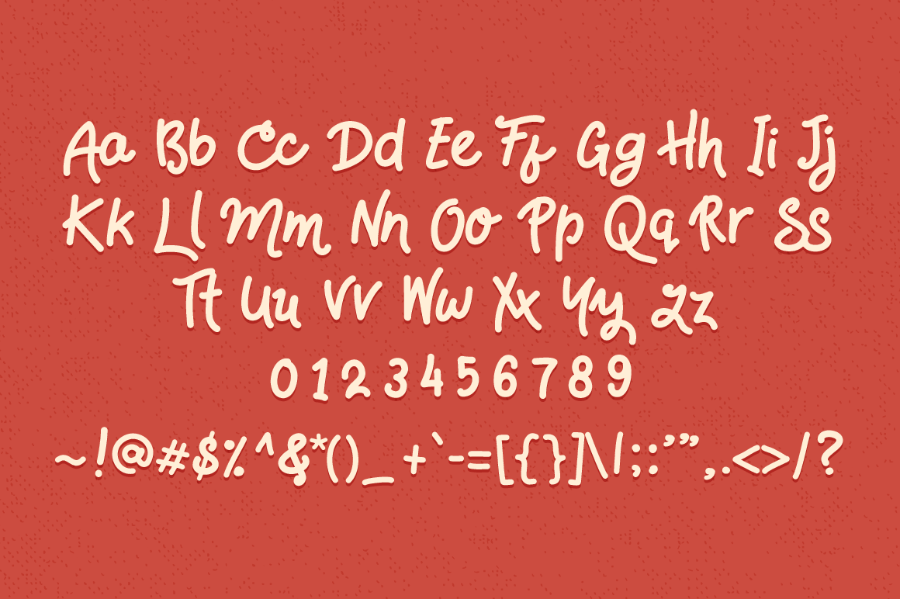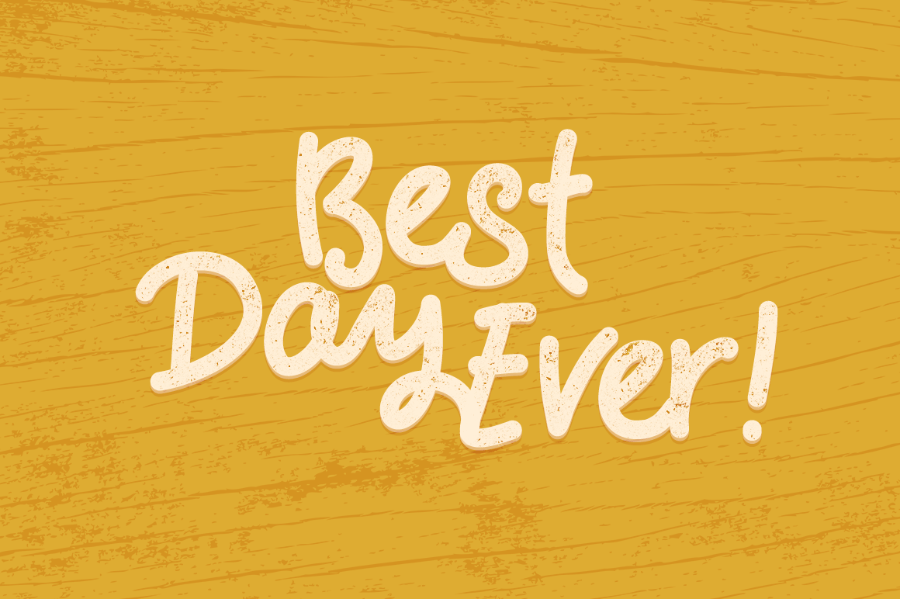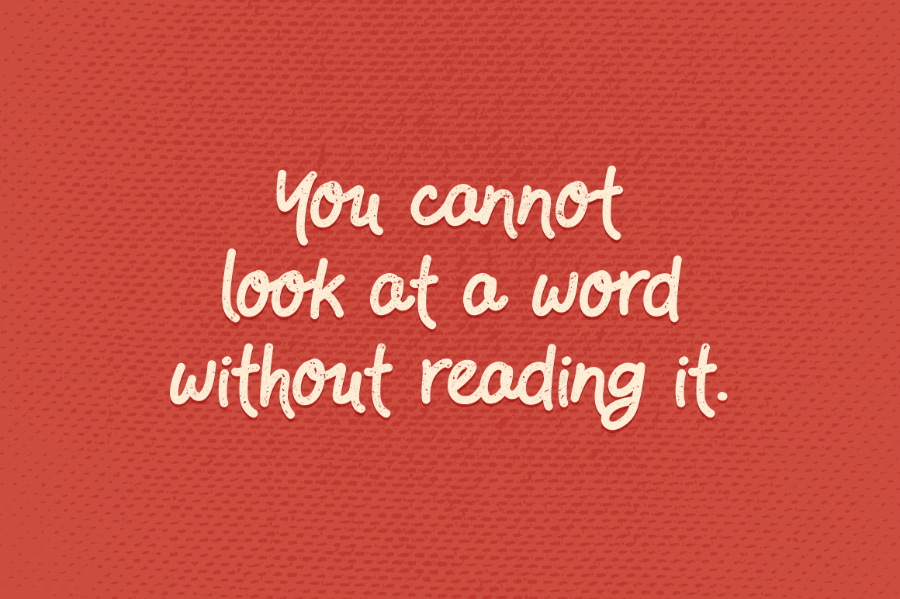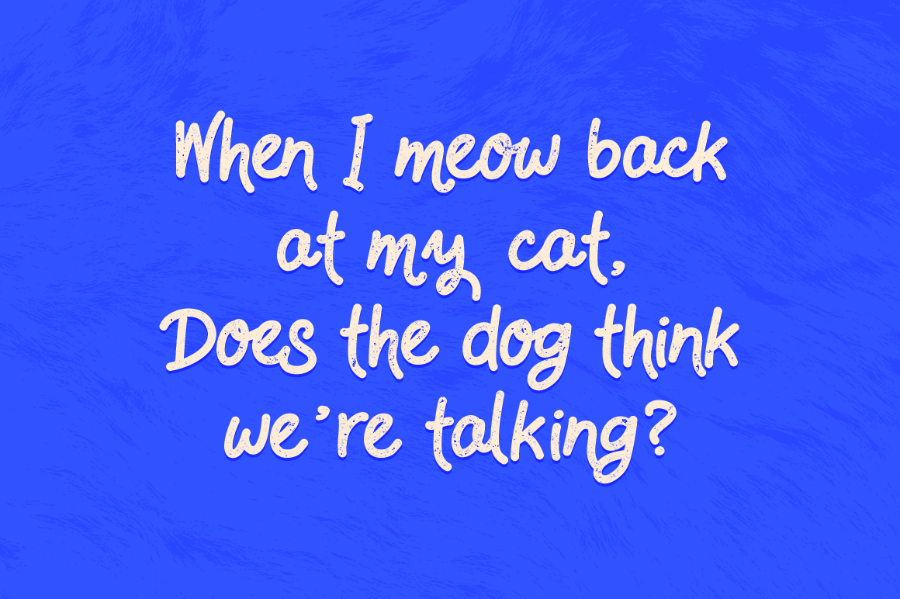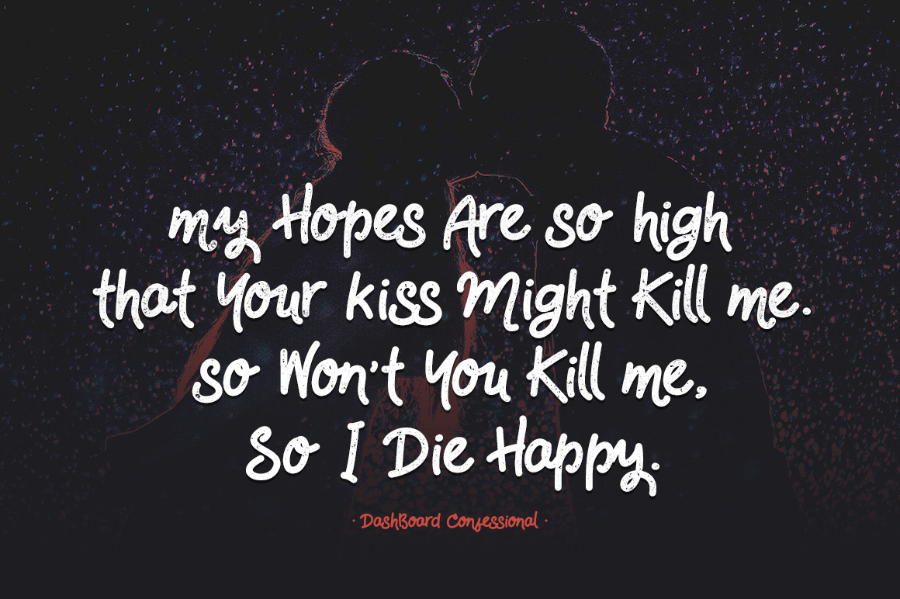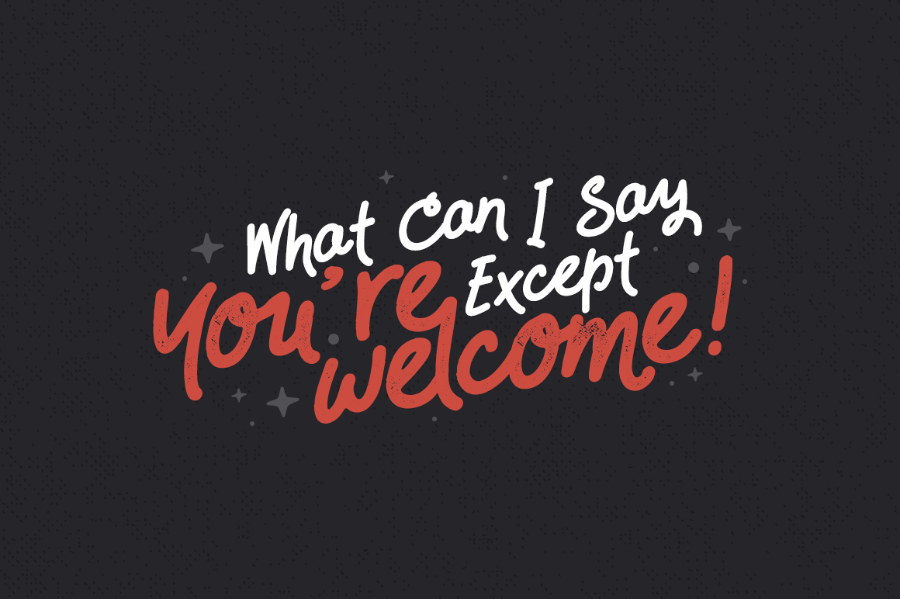
Hands-Down Free Typeface
Hands-Down Free Typeface is a typeface from weirdstore named after their very favorite song ever, Hands Down by Dashboard Confessional. Coming today from an actual handmade on iPad with the author’s own finger! It’s so simple, it even has no alternates or ligatures. But already support for multi-language characters. Just try it, you’ll love it!